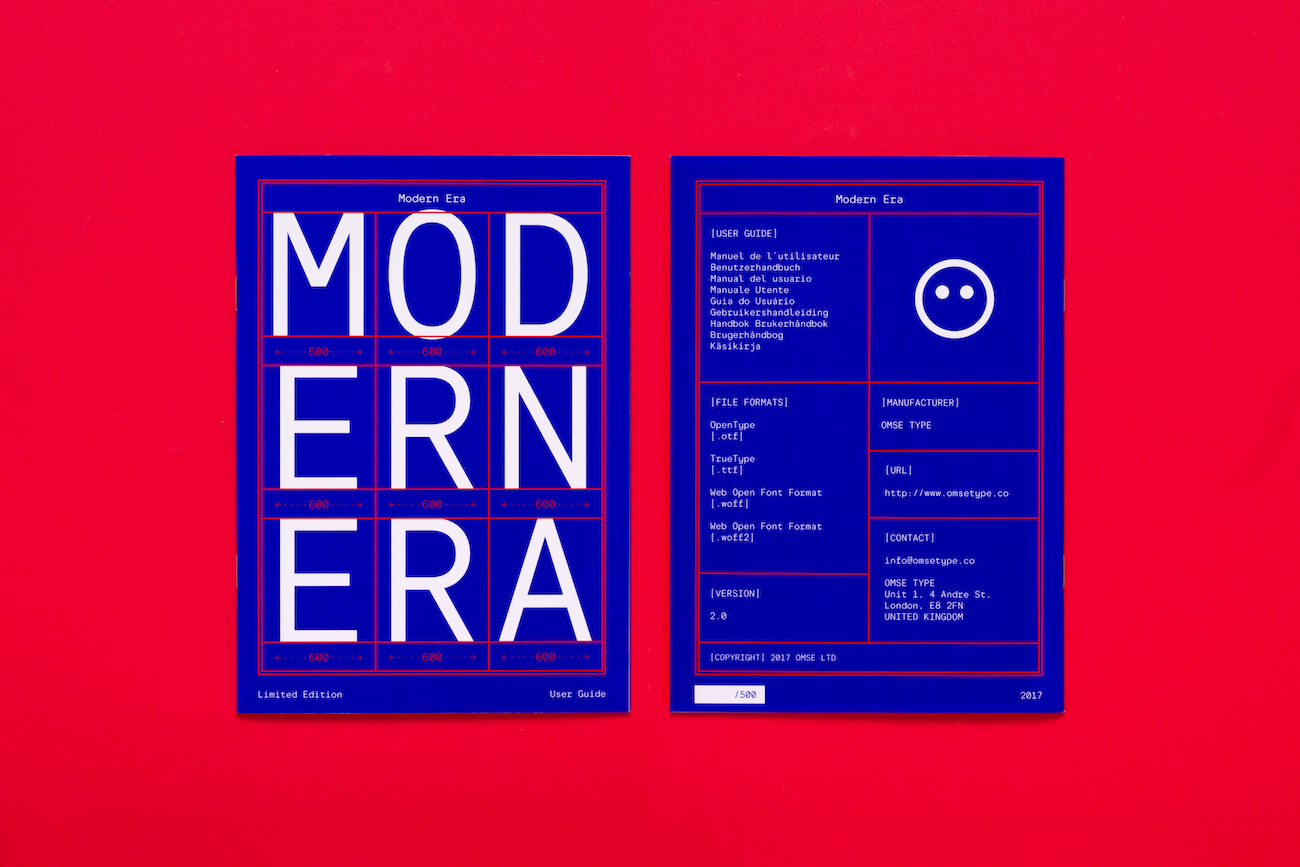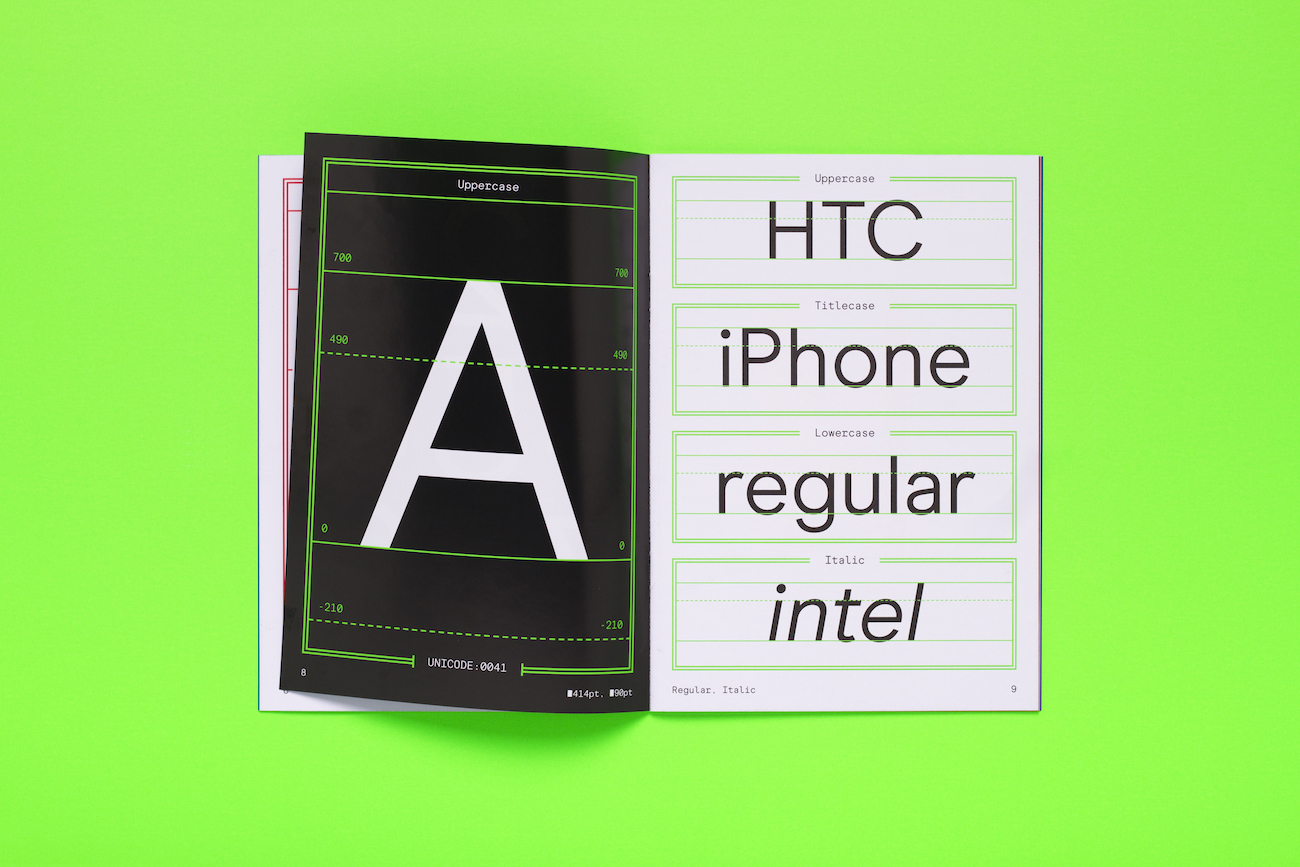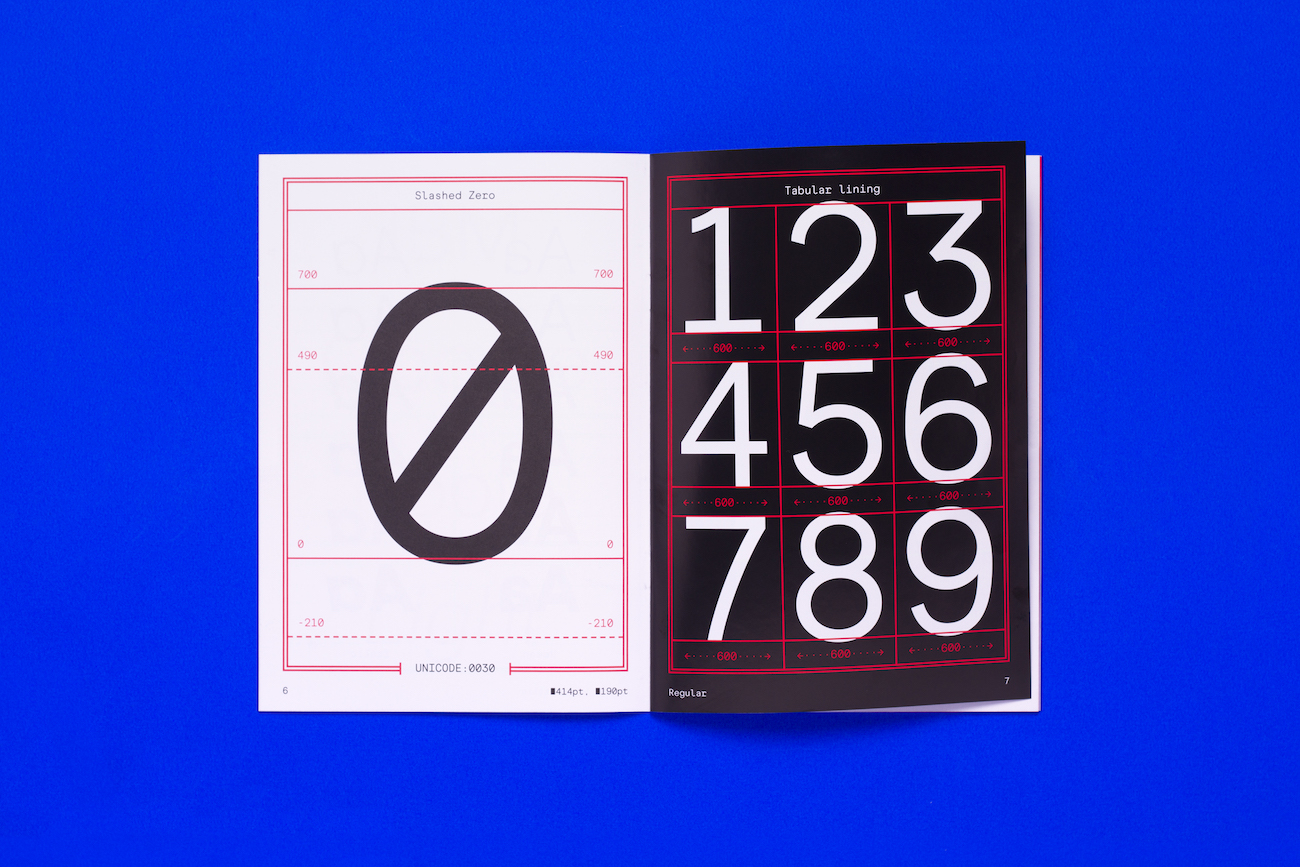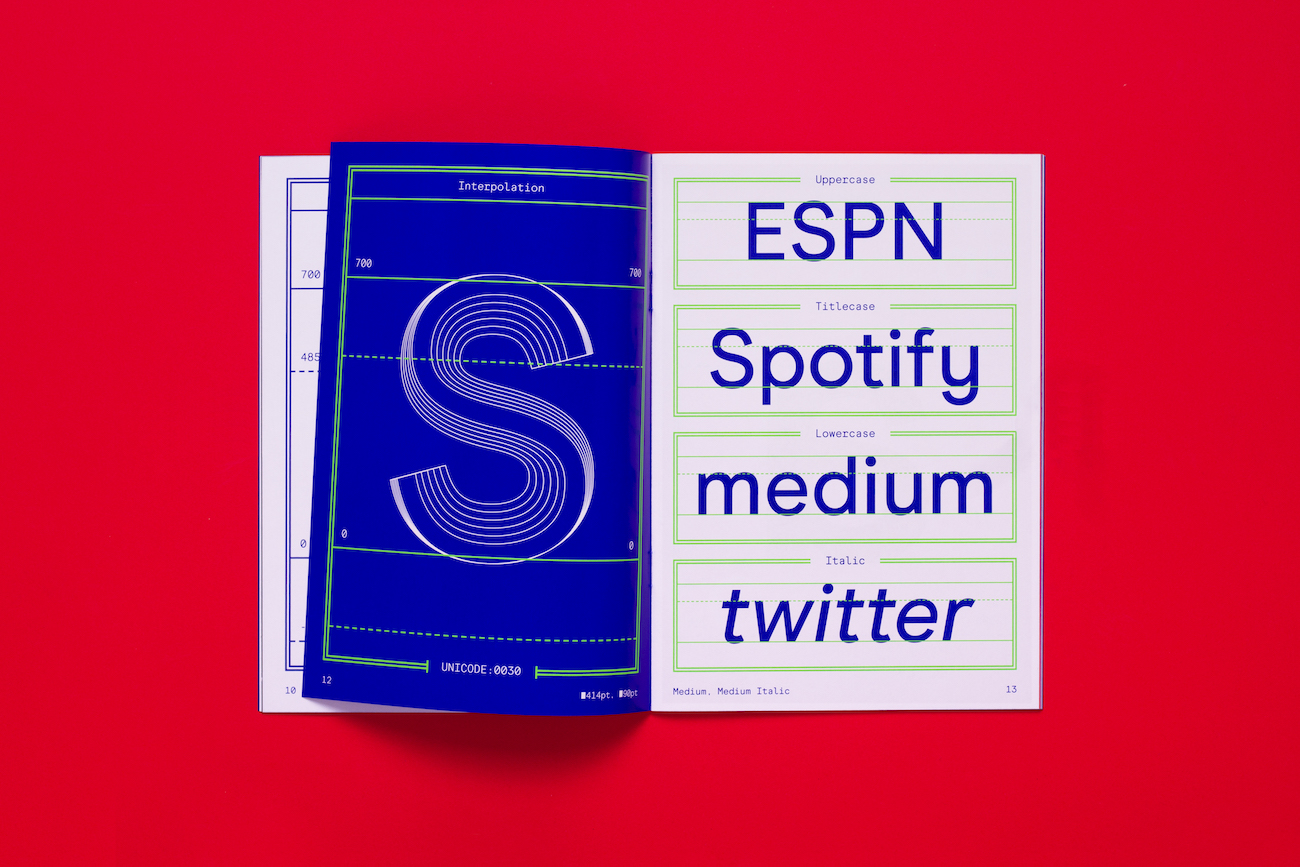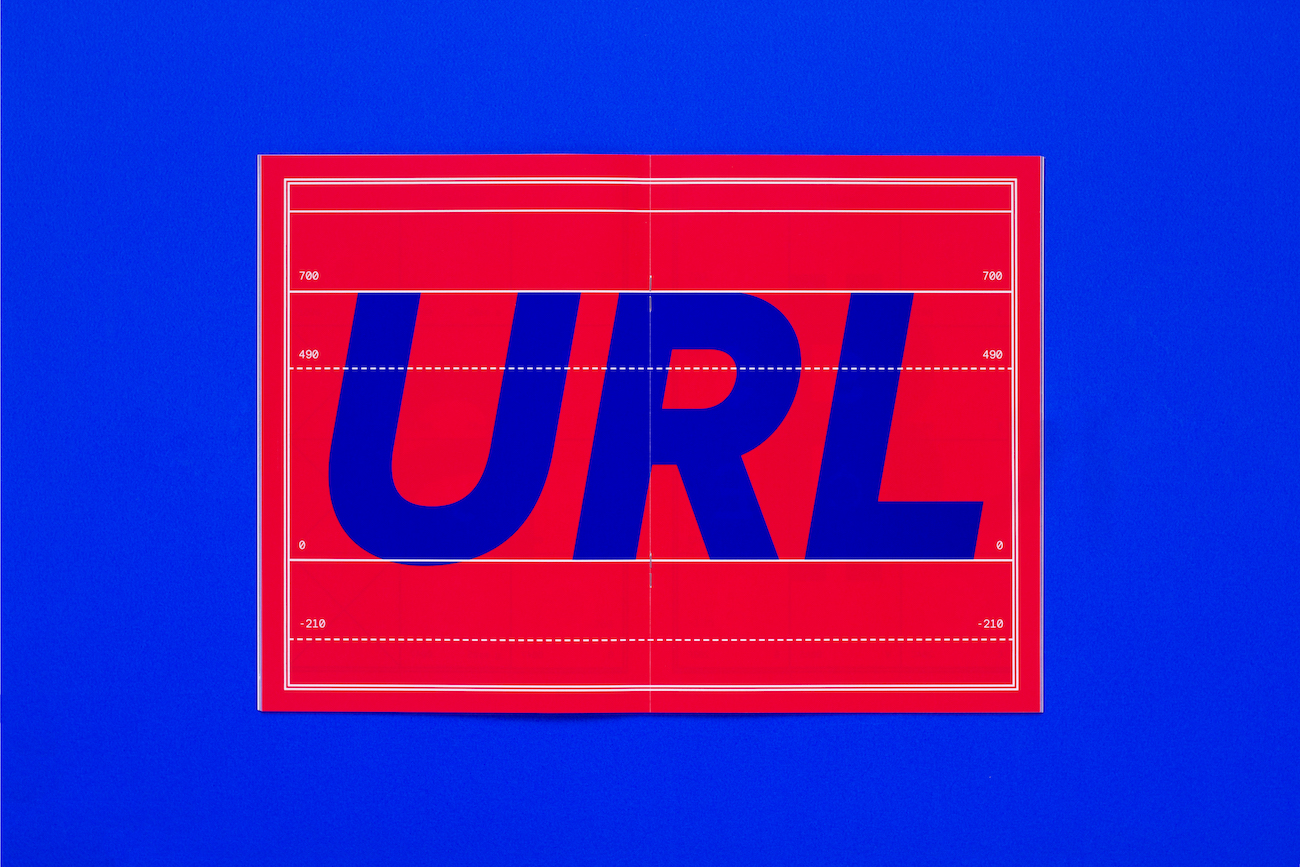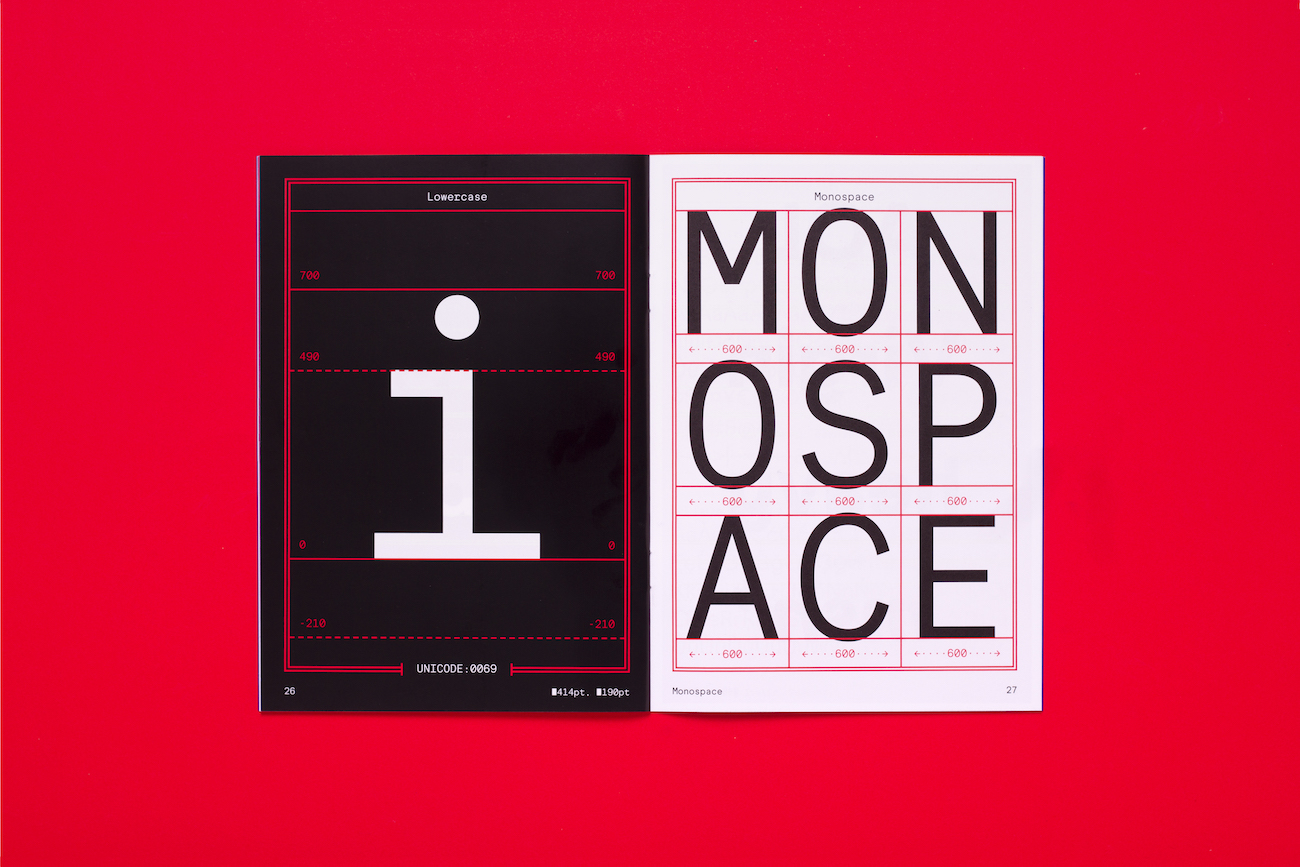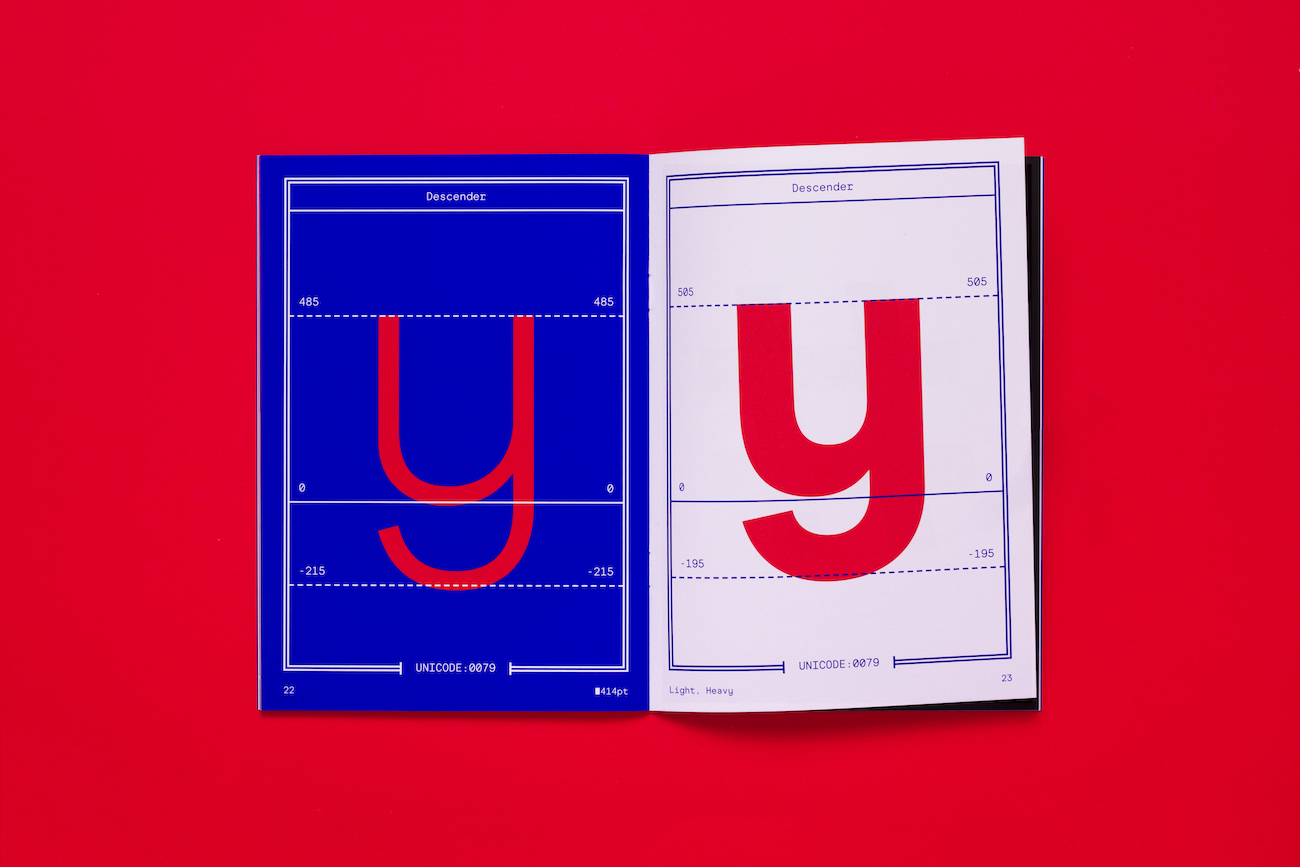
Modern Era is a sans-serif type family consisting of 12 styles ranging from Light to Black with corresponding italics and four accompanying monospace styles. Modern Era was first drawn in 2014 and trialled in a number of commercial projects ahead of its official release. In 2016, it was comprehensively redrawn to include Light, Light Italic, Regular, Italic, Medium, Medium Italic, Bold, Bold Italic, ExtraBold, ExtraBold Italic, Black, Black Italic and 4 supporting Monospaced cuts. The character set has been expanded to include over 520 glyphs, providing support for over 60 languages. The release also incorporates enhanced OpenType typographic and layout features, including a number of stylistic alternatives. Initial concepts for Modern Era referenced early 20th century geometric and realist sans-serif typefaces, most notably Futura and Neuzeit. The name Neuzeit translates into English as “new time” or “modern era”. When these typefaces were designed this referred to a different period of time, albeit one equally as full of upheaval and rapid change as the digital age we live in today. Taking this as a starting point, Modern Era has been designed as a versatile sans-serif family for use in contemporary print and digital applications. Modern Era is distinctive for its large x-height, minimal stroke contrast, slanted stem and counter/arm joints, pronounced arcs and its contrast of wider circular characters with narrower characters. These features give what was initially conceived as a functional typeface an idiosyncratic, friendly character making it equally suited for body copy and display.